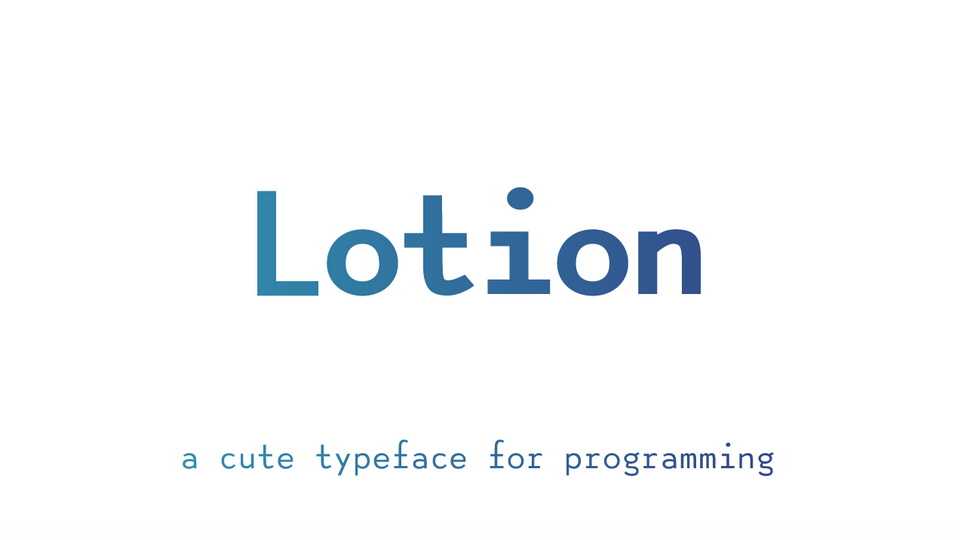
Download Lotion font, a fresh and super cute typeface designed to make you feel cozy while programming. Lotion family available in four weights and corresponding Italics.
Designer: Nina Belikova